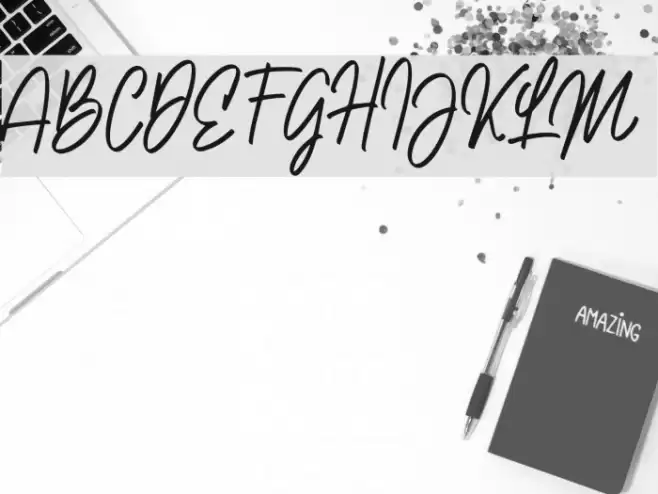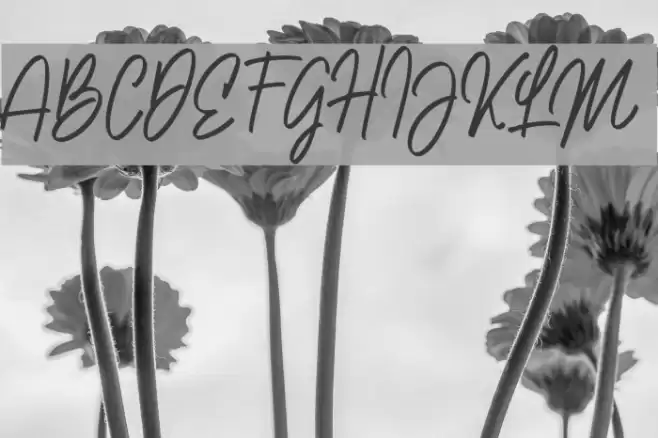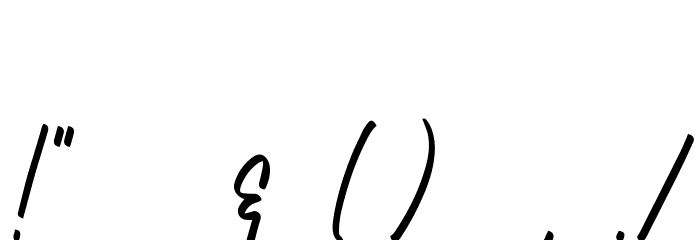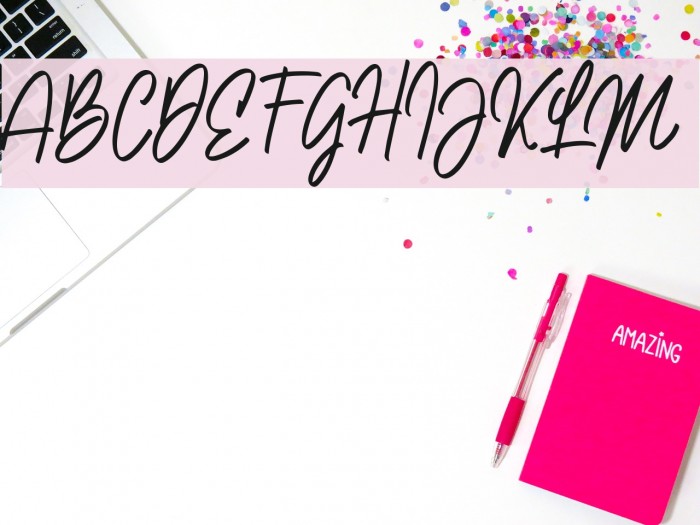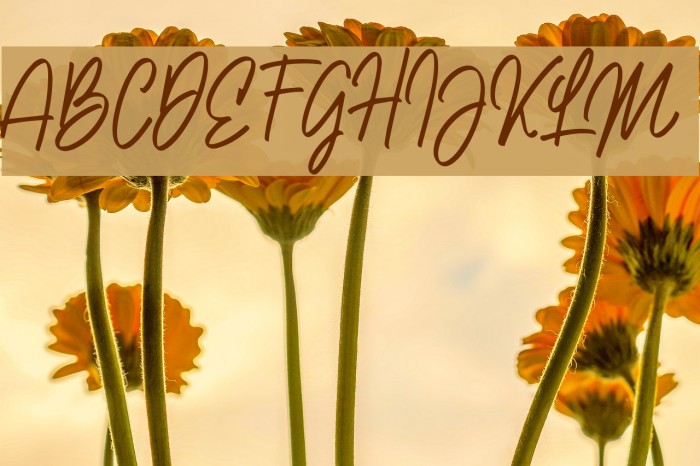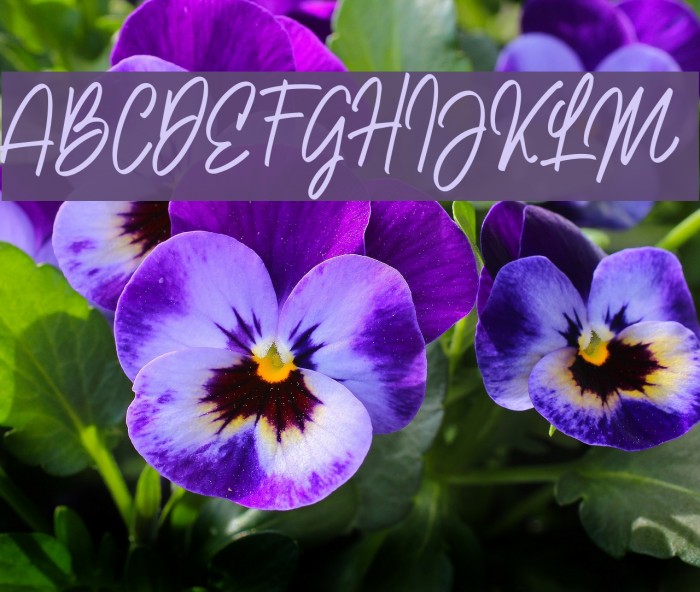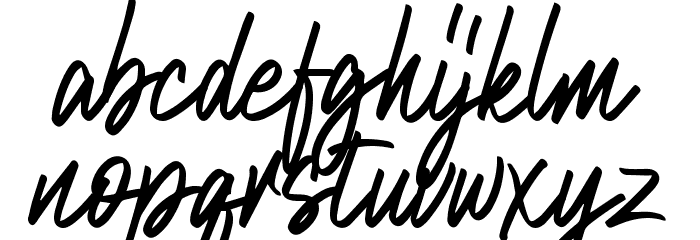
NataliaRosalineDemo Font
NataliaRosalineDemo Description
This font features a dynamic and fluid handwritten style, characterized by its elegant and flowing script. The letters are connected, giving it a cohesive and continuous appearance, reminiscent of cursive handwriting. The uppercase letters are tall and slightly slanted, while the lowercase letters maintain a consistent flow with varying heights and loops. The strokes are smooth and exhibit a medium contrast, with some letters having distinctive flourishes that add to its decorative appeal. This font exudes a sense of personal touch and creativity, making it suitable for projects that require a personal or artistic flair.
A fluid and elegant handwritten script with medium contrast and decorative flourishes from Uncategorized fonts.
- Proposed Projects: Ideal for wedding invitations, personal branding, greeting cards, and artistic projects.
- Use Case: Logos, Invitations, Artistic projects